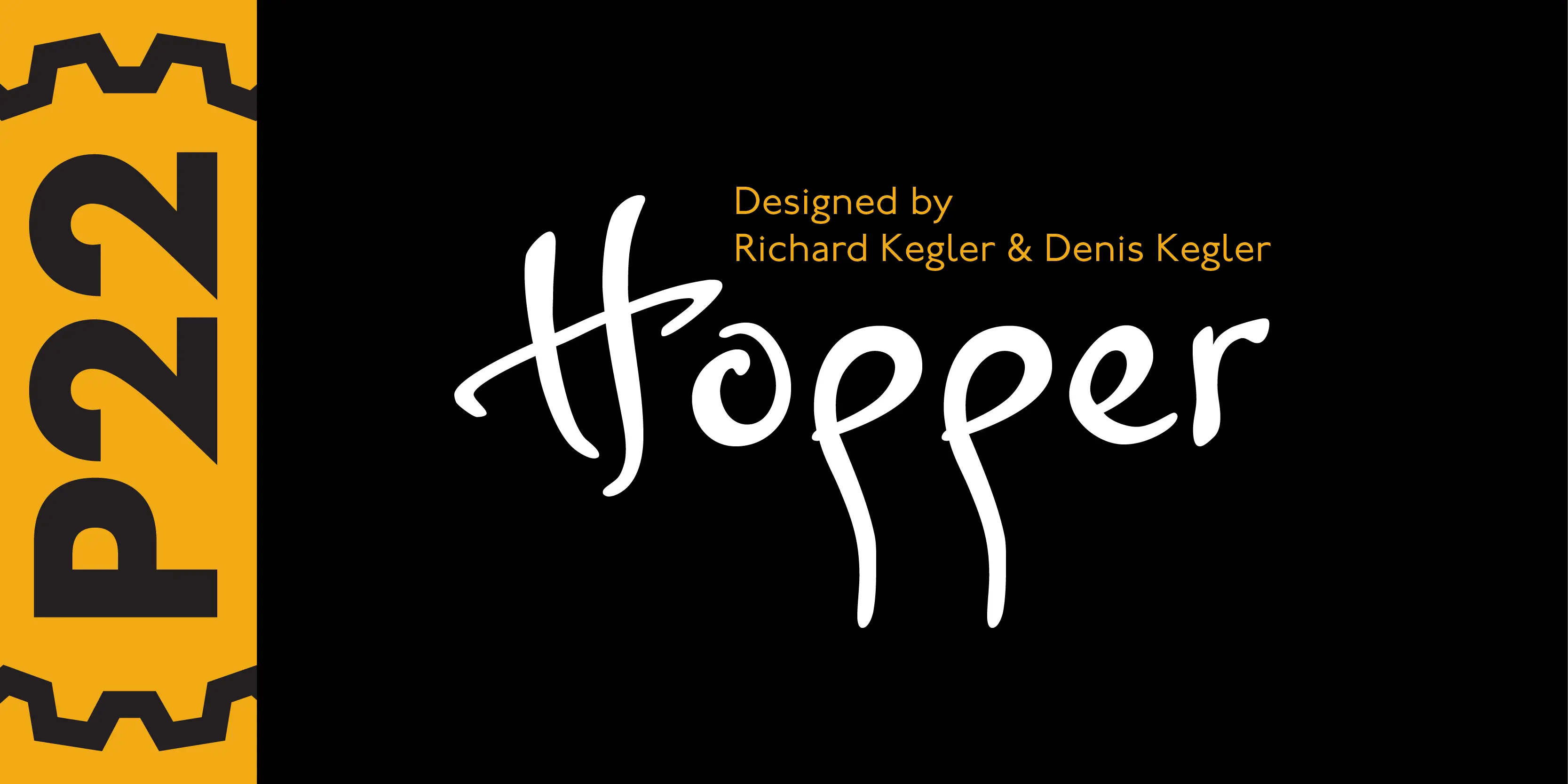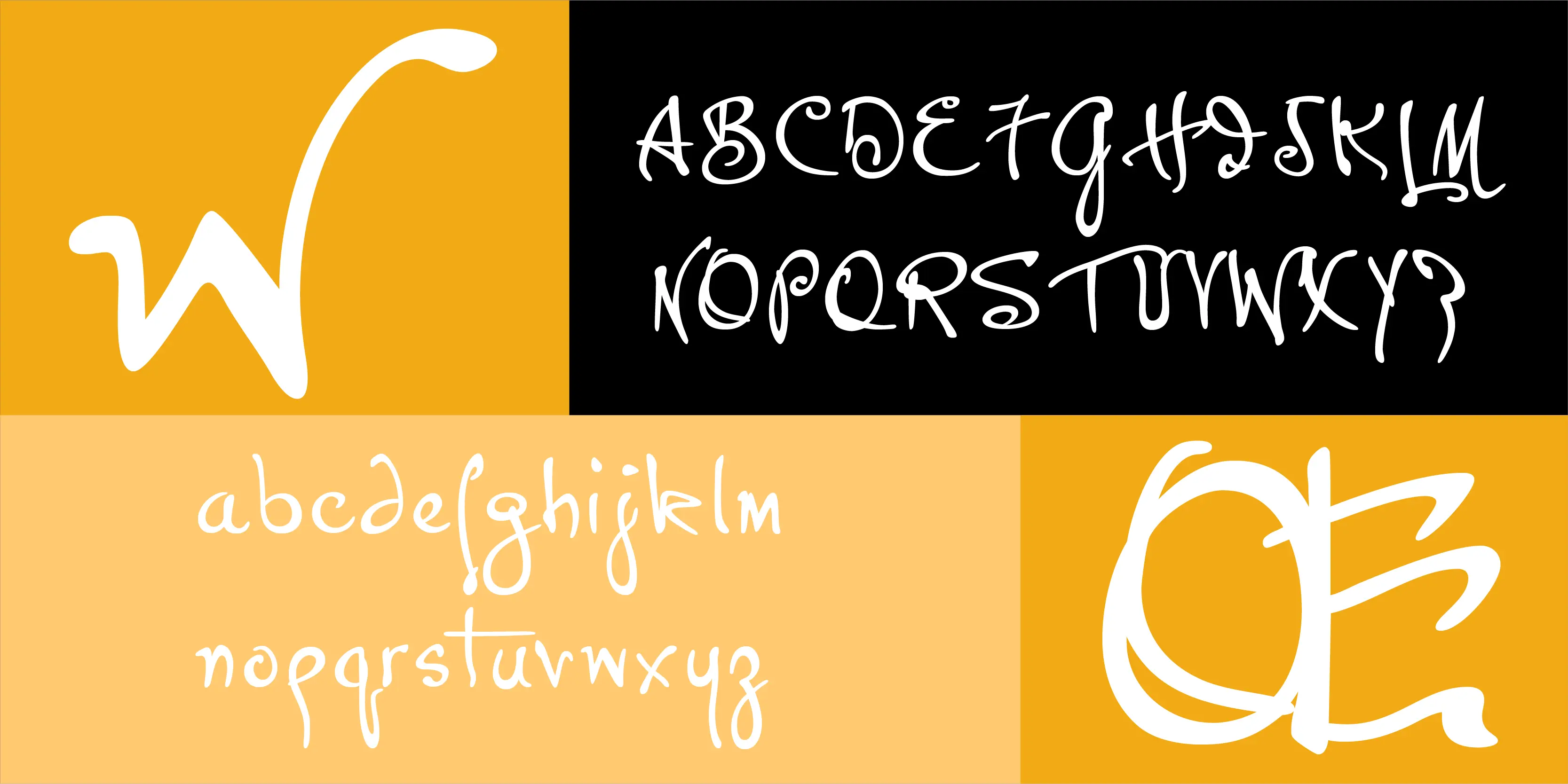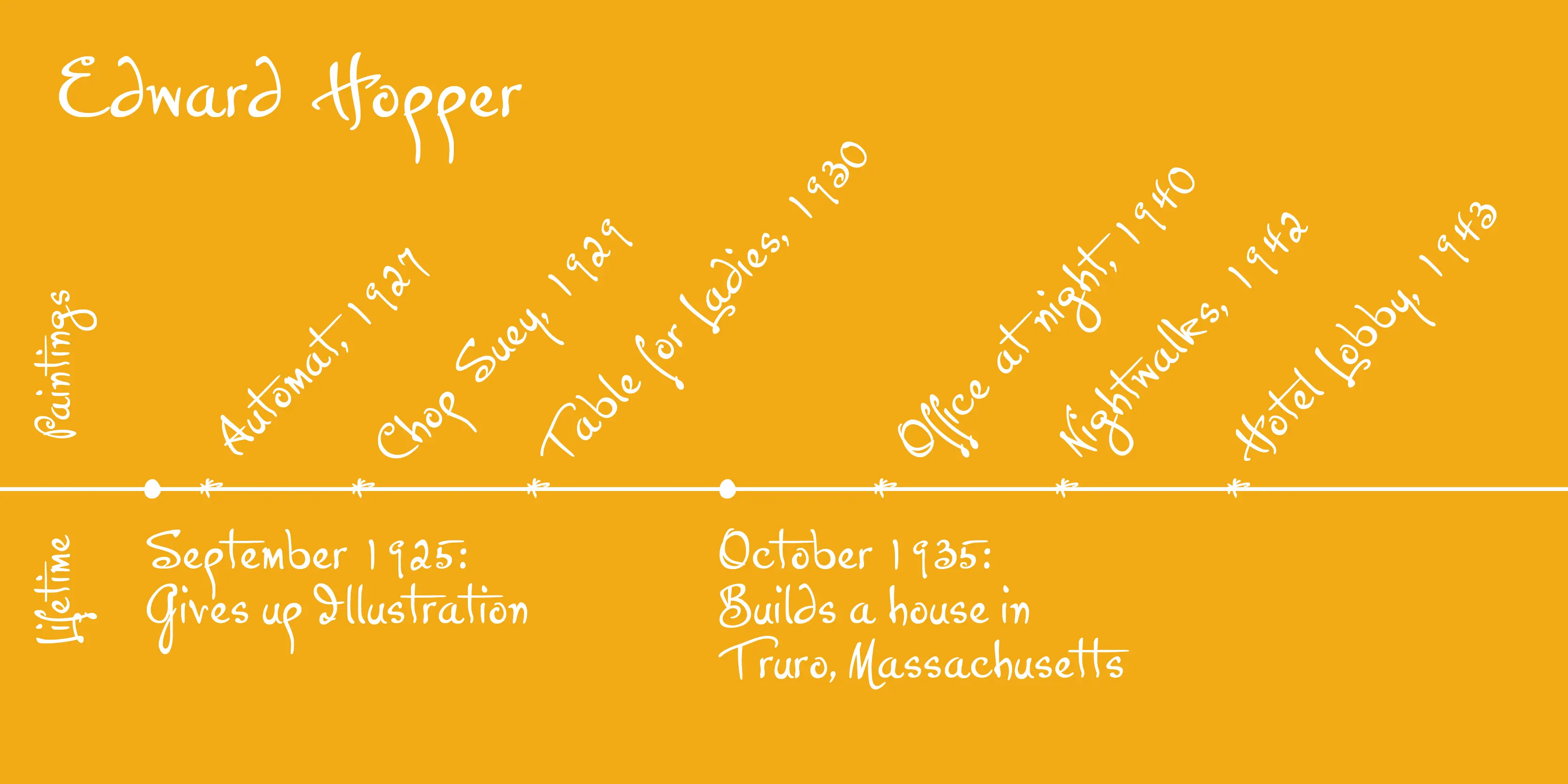
Hopper Font Family
• Hopper Edward
• Hopper Josephine
• Hopper Sketches
Hopper
This font set is based on the handwriting styles of quintessential American artist Edward Hopper and his wife, Josephine Nivison Hopper, and was produced in conjunction with the Whitney Museum of American Art. Both artists kept a record of Edward’s paintings in a series of journals, which provide the basis for this set. Unlike font sets which feature two similar handwriting samples of one artist, the Edward Hopper font set presents two distinct handwriting styles. The Edward Hopper font is typically masculine, with its sharp angularity, while the Josephine Hopper font presents an interesting contrast, given its elegant, rounded shape, with significantly more flourish. The extras, culled from the aforementioned journals, feature 52 Hopper sketches, which run the gamut from landscapes to nude studies.